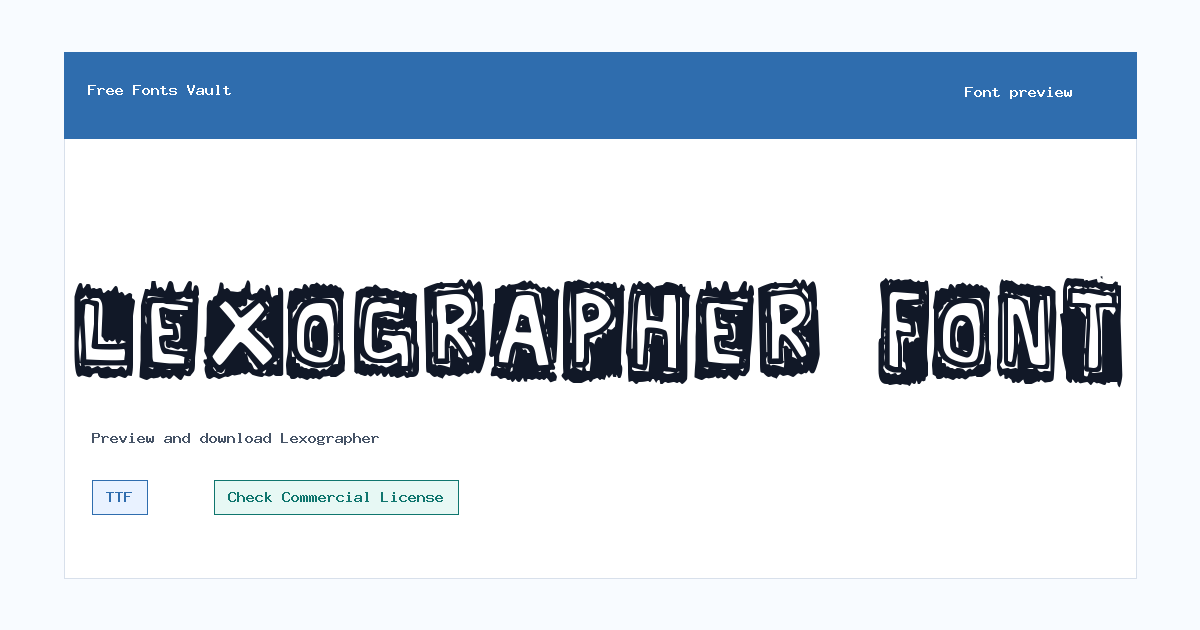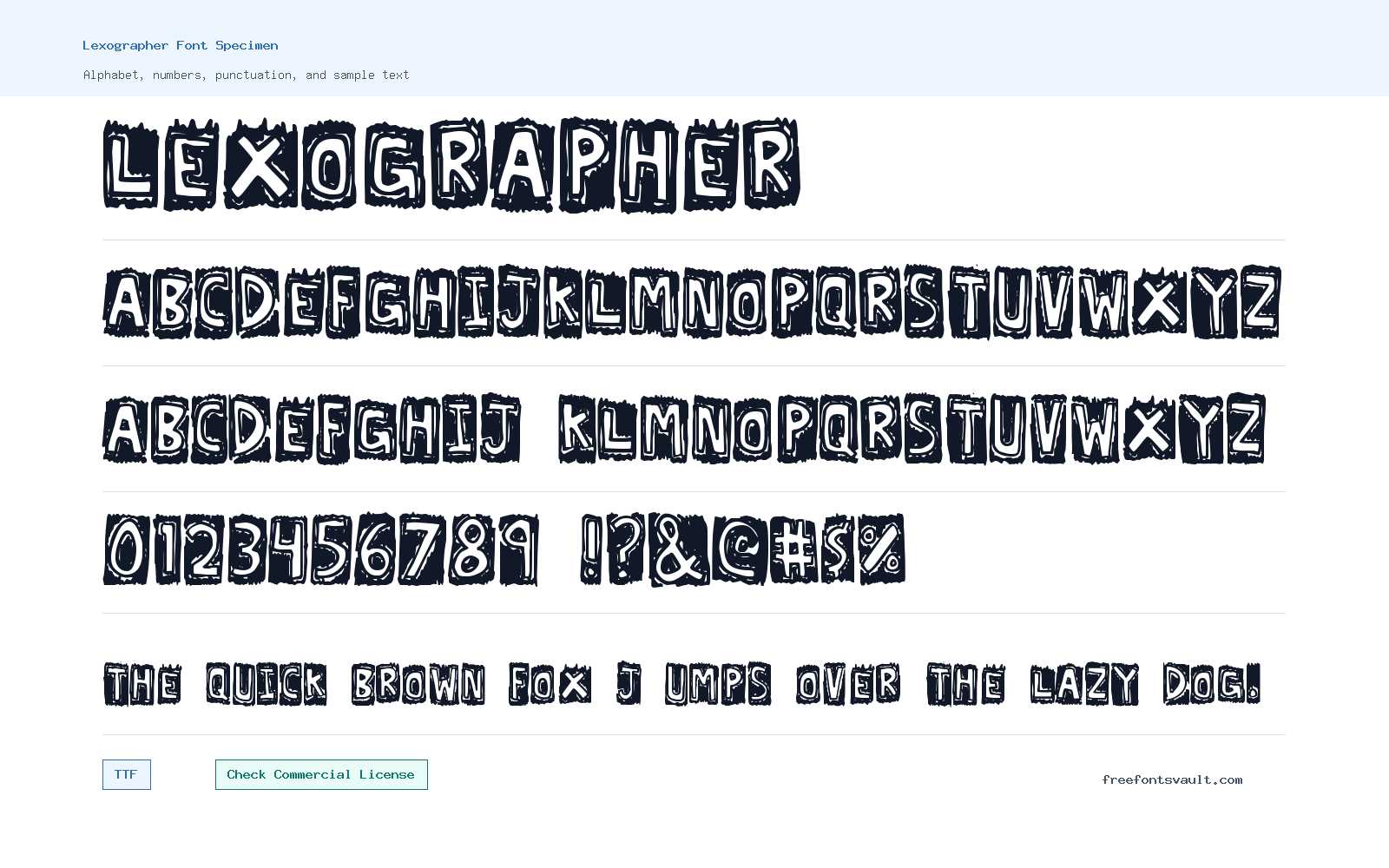
Lexographer
- Designer Tom Murphy 7
- Foundry [ Divide By Zero ] Fonts
Lexographer is a dark, marker-style display font with inverted letter shapes and shaded outlines. It works best when you want short text to feel rough, hand-drawn, and a little offbeat.
Lexographer was created by Tom Murphy 7 for [ Divide By Zero ] Fonts. The font comes as a regular TrueType file, lexo.ttf, and the available metadata identifies the family name as Lexographer. Its style is better suited to display use than long reading: the letters have a heavy, shaded look that can make a word stand out quickly, but the texture may slow readers down in small sizes.
Use Lexographer for short titles, poster words, album-style graphics, stickers, social images, or playful headings where a rough marker effect fits the design. Test your exact words in the preview before downloading, especially if you plan to use numbers, punctuation, or mixed-case text. Some listings describe the caps and lowercase as sharing the same letter shapes, so case changes may not create a traditional uppercase/lowercase contrast.
- Dark inverse letter style with shaded marker-like outlines
- Display-friendly look for short words and headings
- Metadata and third-party listings connect the font to Tom Murphy 7 / [ Divide By Zero ] Fonts
- Posters and title graphics
- Sticker-style text
- Album, zine, or flyer headings
- Short social media image text
- Rough handwritten display typography
Lexographer is credited to Tom Murphy 7, with [ Divide By Zero ] Fonts listed as the manufacturer/foundry in the available font metadata.
Keep Lexographer large enough for the shaded outlines to stay clear. It is a better choice for a few words than for paragraphs. Pair it with a plain sans serif or simple serif for supporting text so the main message remains readable.
Who designed Lexographer?
Lexographer is credited to Tom Murphy 7, and the manufacturer is listed as [ Divide By Zero ] Fonts.
Is Lexographer good for body text?
It is not the best choice for long reading. Its dark, outlined marker style is more practical for short headings, logos, posters, and display text.
Does Lexographer include both uppercase and lowercase?
Third-party font listings describe the character set as including keyboard characters, with caps and lowercase sharing the same forms. Test your text in the preview to confirm how your words appear.